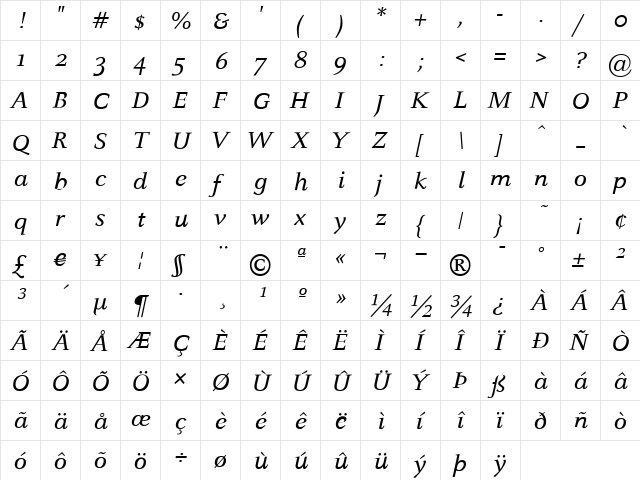
CelesteST Italic
Design Context for CelesteST Typeface
CelesteST is a composed and adaptable typeface that performs quietly and consistently across a wide range of design contexts. The dynamic lean of this cut emphasises speed and emphasis in any layout.
Pro Tip: Use CelesteST for emphasis, pull quotes, and subheadings where its slanted energy can add rhythm to the layout.